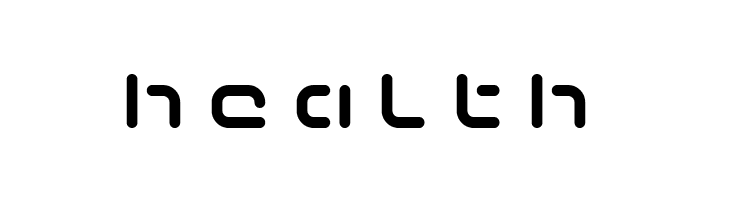
A bold, geometric font with a modern and futuristic design, featuring expanded width for clarity.
A monospaced font with a modern yet vintage feel, featuring consistent widths and rounded finishes.
A modern, geometric font with consistent stroke width and unique character design.
A modern, geometric font with rounded edges and uniform width.
A monospaced font with uniform character width, ideal for coding and tabular data.
A sleek, modern font with geometric structure and consistent stroke width.